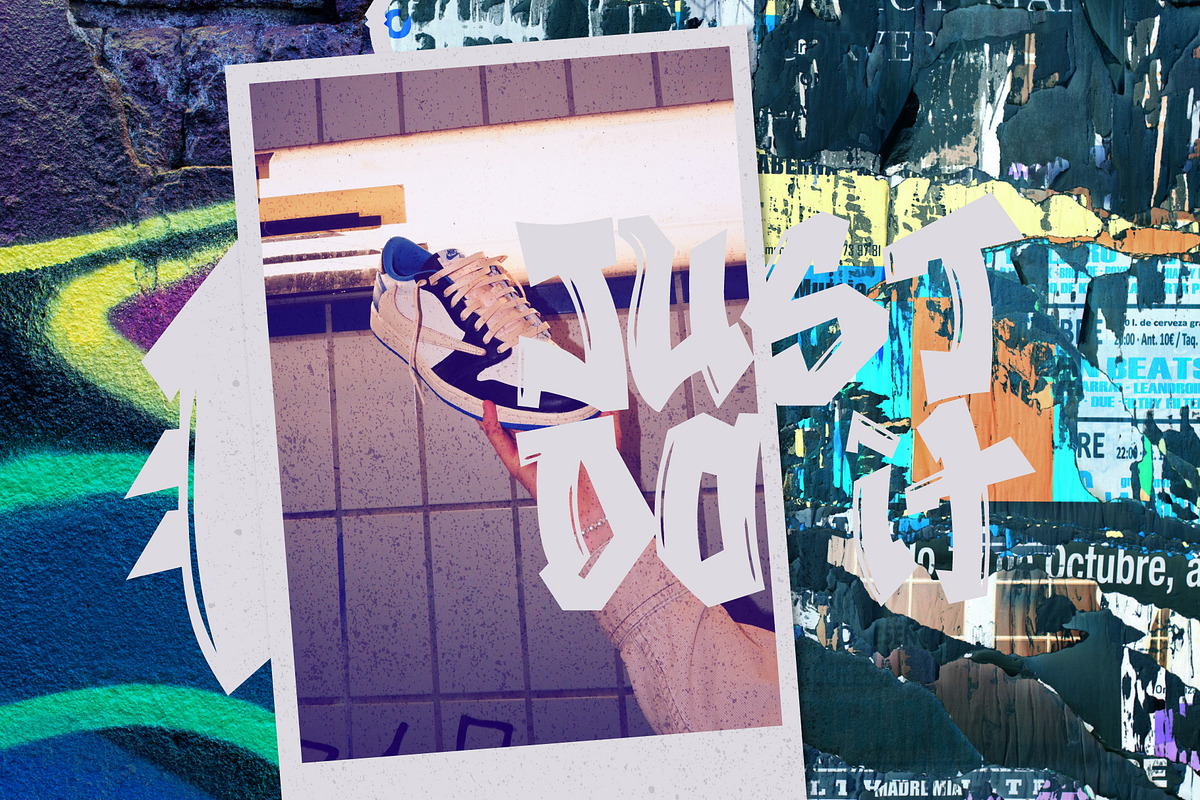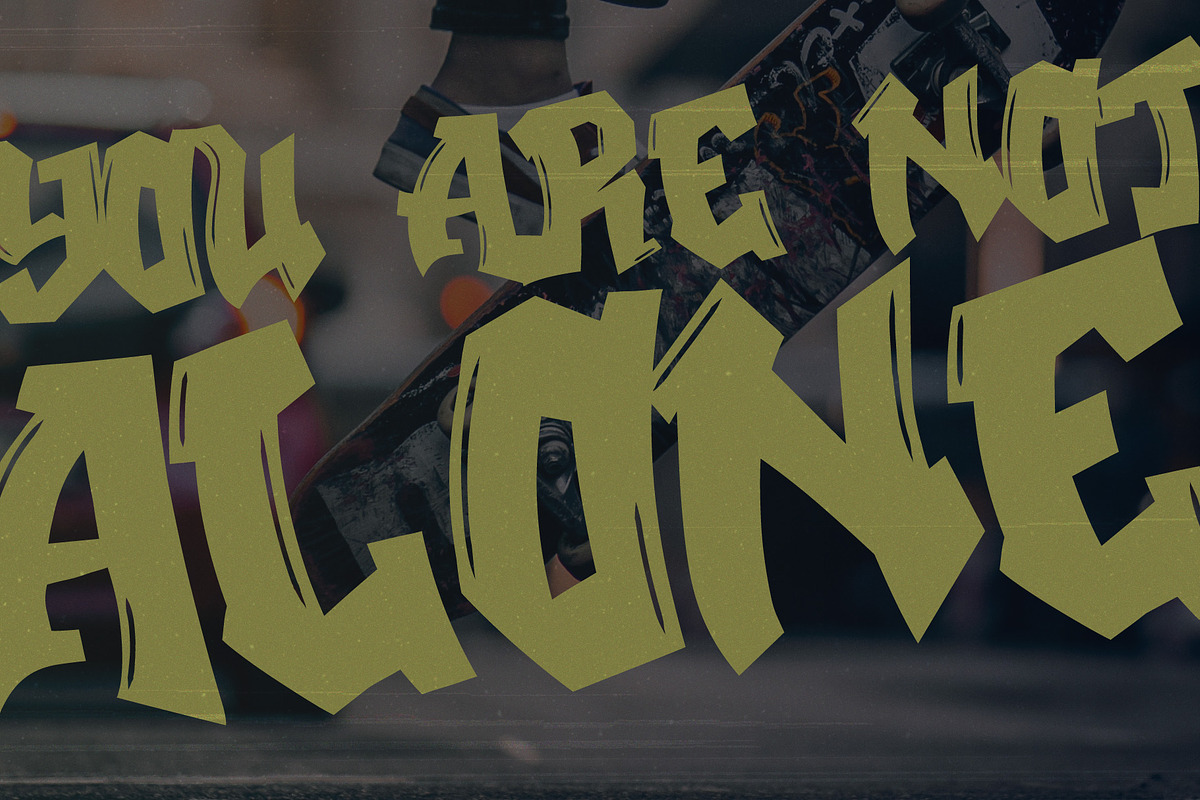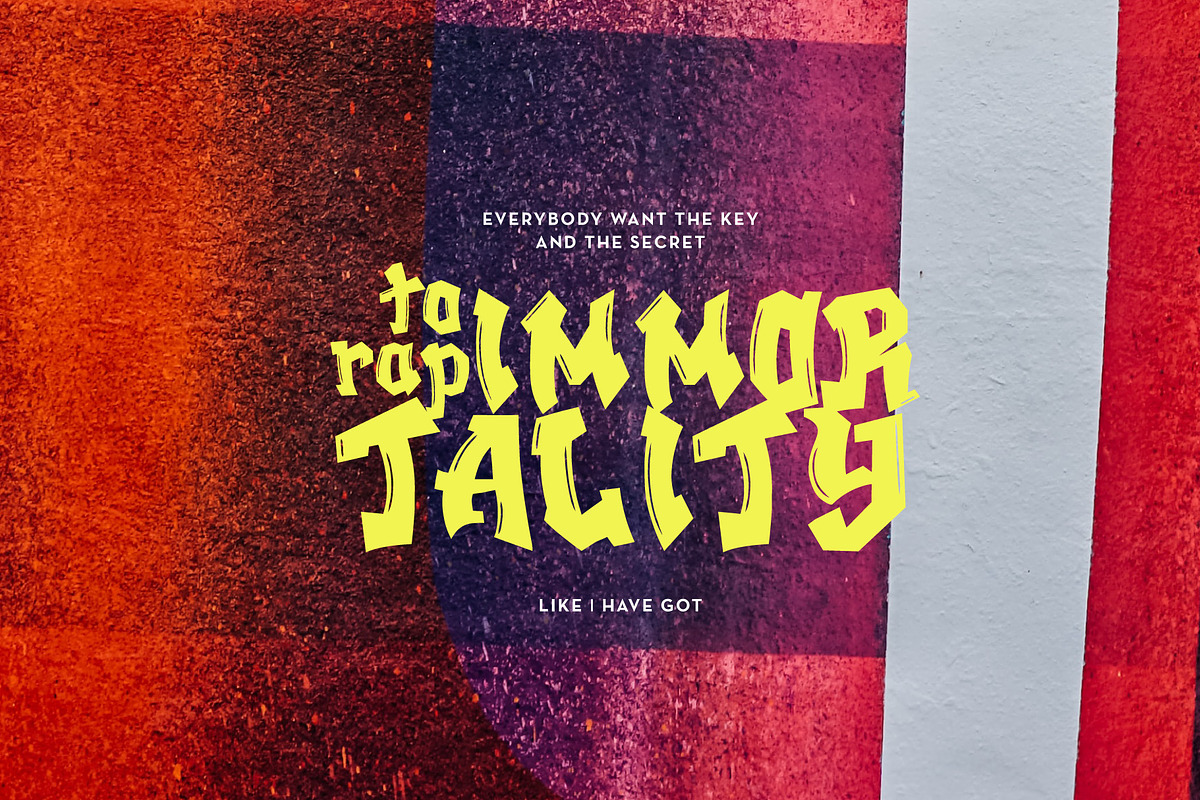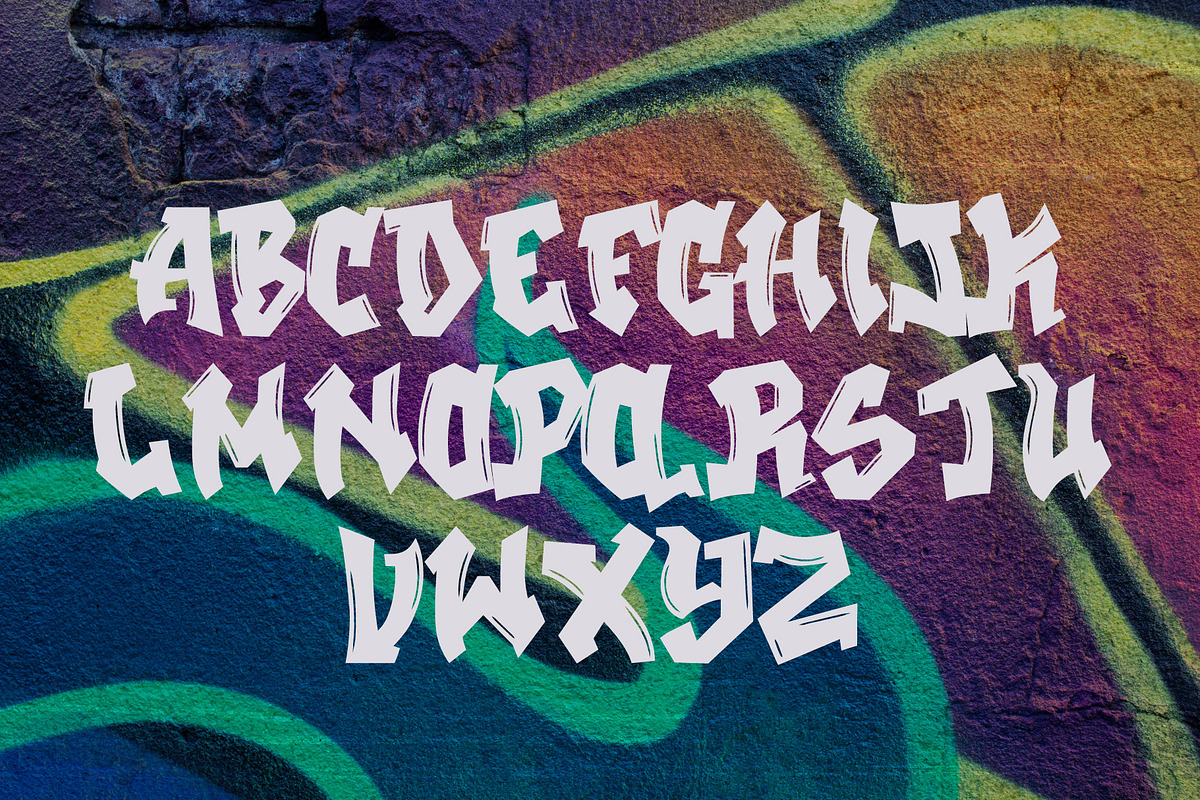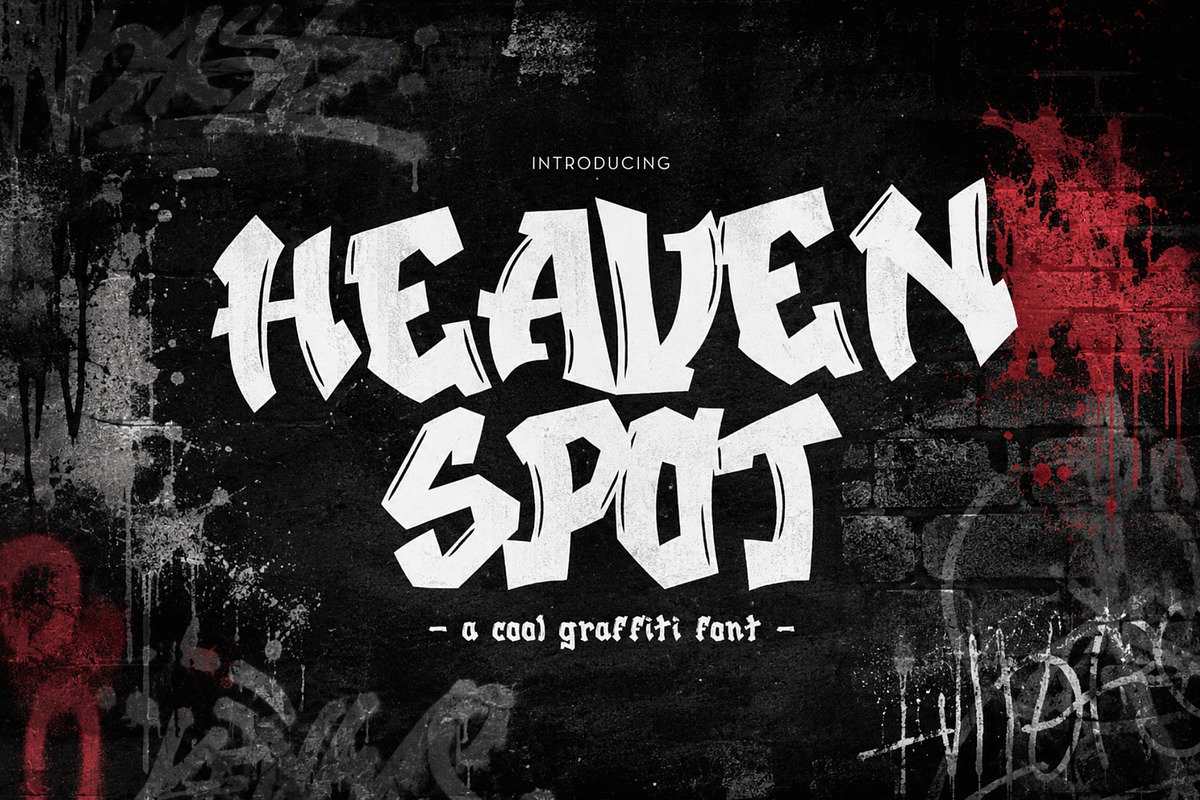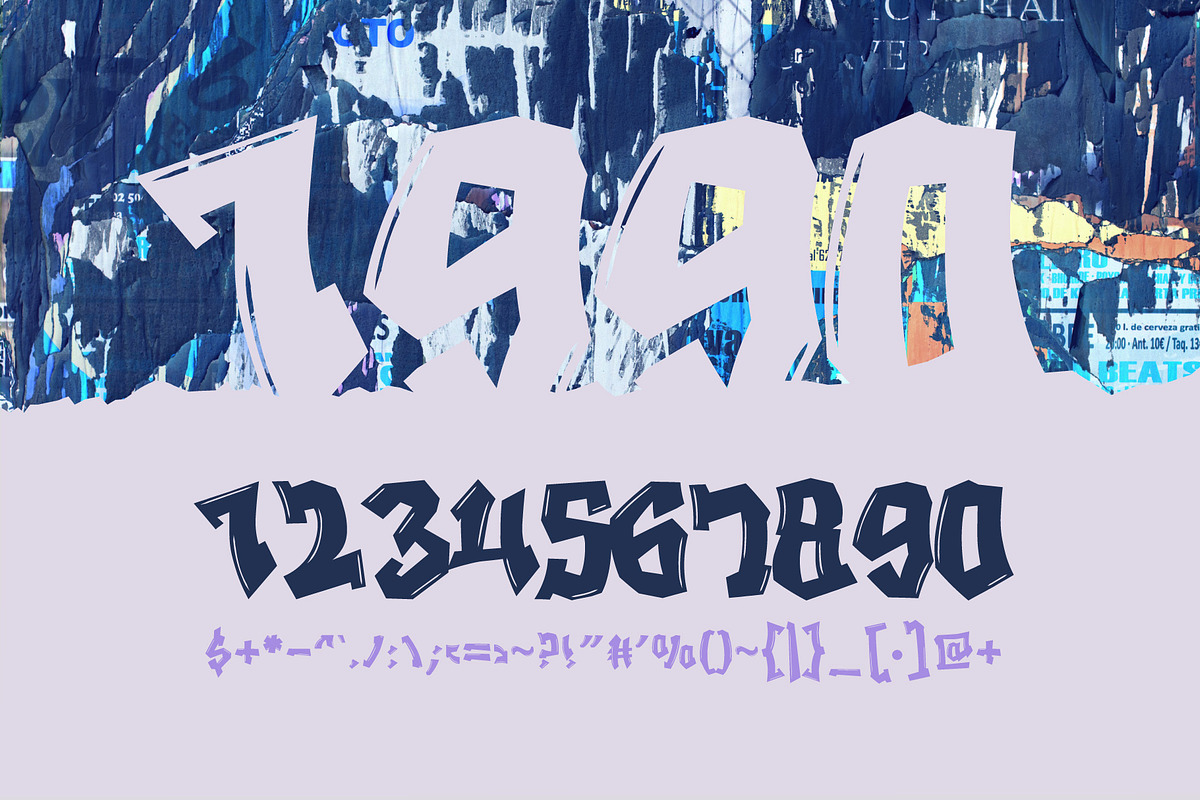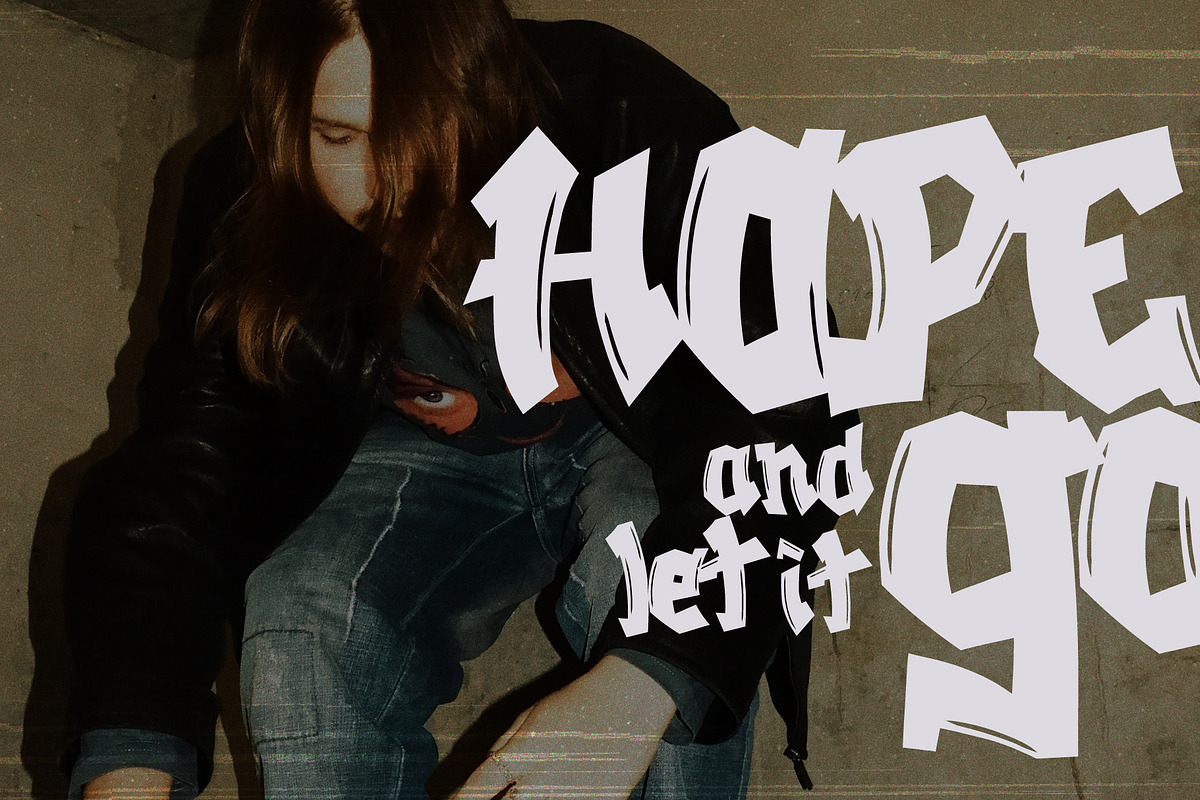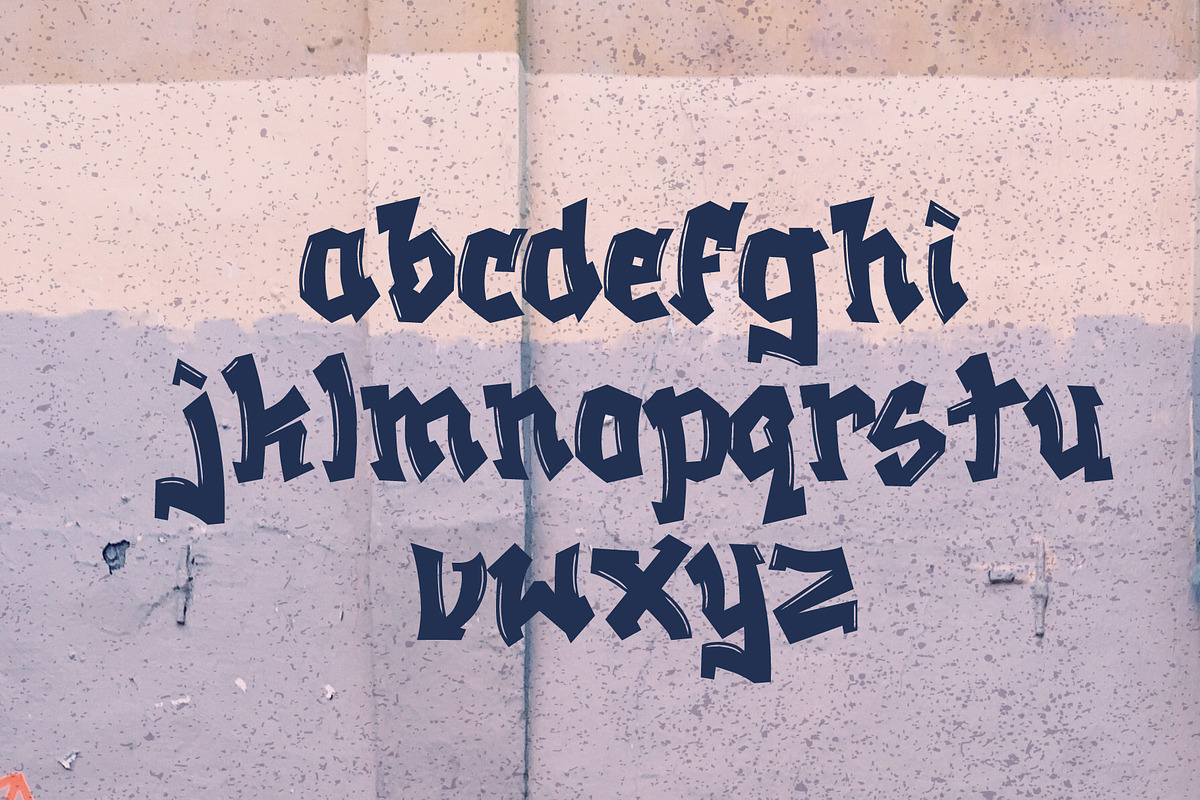
Heaven Spot - Rad Graffiti Display
Heaven Spot is a modern graffiti typeface inspired by street art and underground hip hop music. This marker like font is beautiful and legible. You can create incredible wall art, headlines, album covers, social media posts, logos, poster, packaging, and pretty much anything you can think of. Get creative today with Heaven Spot!